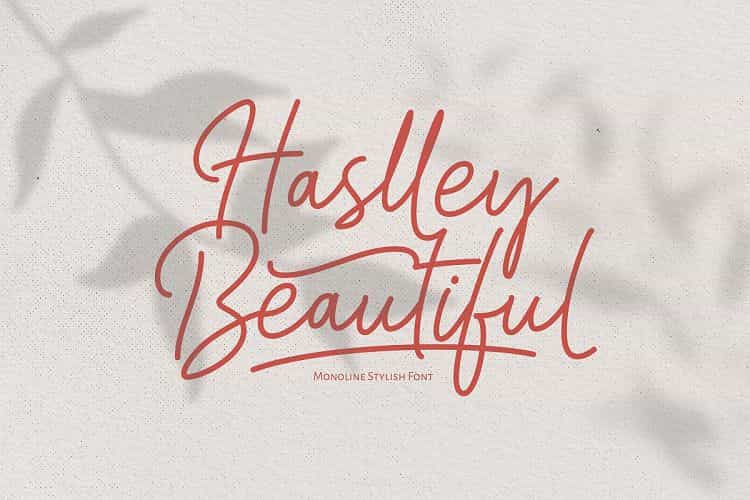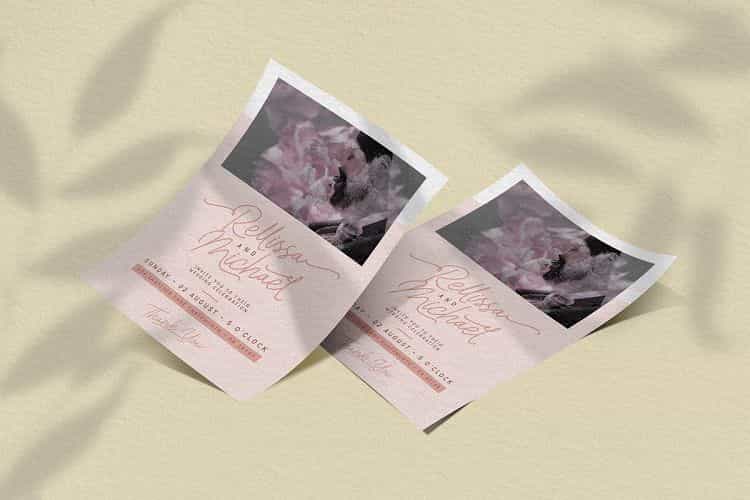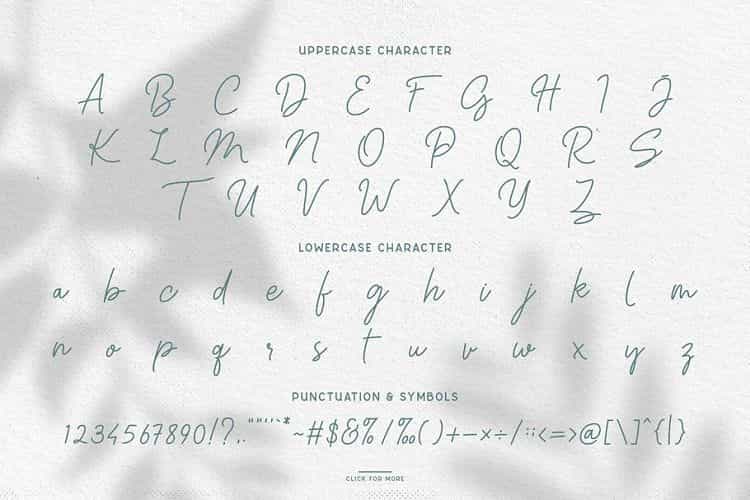
Discover Haslley Beautiful Moniline Font, part of the Commercial Handwritten Monoline collection—a versatile and unique font perfect for adding a personal touch to your projects. Download it for free and enjoy crafting designs with style, from invitations to social media posts. This font is available exclusively for personal use, giving you the freedom to create without limits. Unlock your creativity with Haslley Beautiful Moniline Font today!
Haslley Beautiful Monoline Stylish Font is a font that was inspired by the beauty of curves in the world. It has 686 types of glyphs which are able to give their own creations to designers because they have many variations of different kinds of letters.